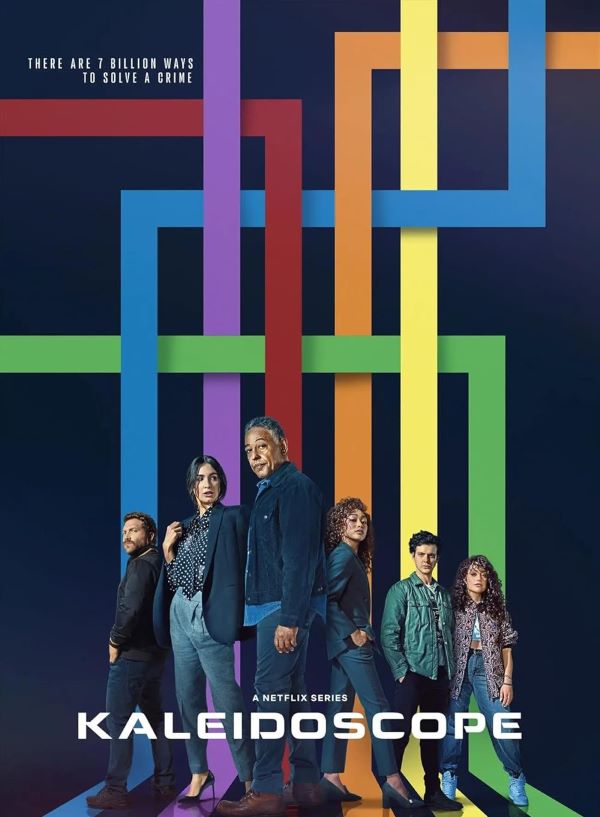
Kaleidoscope Font
What Font is Kaleidoscope?
Kaleidoscope Font captures the bold and vibrant energy reflected in the series’ mysterious and dramatic tone. The typography most closely matches Montalban Bold, a striking sans-serif typeface with strong geometric lines and a cinematic feel. This font conveys confidence and intrigue, much like the shifting narratives in the show. You can download the font for free, but please note that it is free for personal use only.
About Kaleidoscope